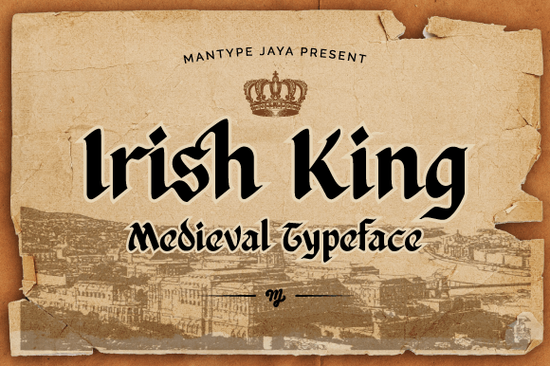
If you’ve been searching for a font that feels like it stepped out of an ancient manuscript but still works beautifully on modern projects, you might want to take a closer look at Irish King Font. It’s a blackletter display typeface with a Celtic twist the kind of design that adds instant character to logos, invitations, book covers, or even merch for print-on-demand shops. The letterforms are rooted in classic medieval script, but they’re clean enough to read and flexible enough to use across digital and physical formats.
What makes this font different from other blackletter styles?
Most blackletter fonts lean heavily into Germanic or Gothic roots think old newspapers or heavy metal album covers. Irish King, however, weaves in subtle Celtic influences. You’ll notice softer curves, ornamental terminals, and a rhythm that feels more lyrical than rigid. It’s not just about looking old; it’s about evoking a specific mood mystical, noble, maybe even a little enchanted.
Who is this font actually good for?
- Small business owners If your brand leans into heritage, storytelling, or artisanal craftsmanship (think breweries, bookshops, or handmade goods), this font can reinforce that vibe without feeling forced.
- Crafters and DIYers Use it on wood signs, vinyl decals, or embroidery patterns. The bold strokes hold up well when scaled or printed on textured surfaces.
- Print-on-demand sellers Pair it with minimalist layouts or nature-inspired graphics for mugs, posters, or apparel that stand out in crowded marketplaces.
- Designers and hobbyists Even if you’re just playing around, the stylistic alternates give you room to experiment. Try mixing uppercase and lowercase for contrast, or layering it over parchment-style backgrounds.
What should I avoid when using this font?
Blackletter fonts like this one have strong personalities which means they don’t always play nice with everything. Here’s what to watch out for:
- Don’t use it for body text. It’s meant to be seen, not read in long paragraphs. Stick to titles, headers, or short phrases.
- Avoid clashing themes. This isn’t the font for tech startups or yoga studios. Save it for projects that match its medieval or mythical tone.
- Pair it thoughtfully. Combine it with simple sans-serifs or serif fonts that won’t compete visually. A clean font like Lora or Montserrat balances its complexity nicely.
Where can I see examples or get inspired?
Check out how others are using it in the blackletter fonts collection you’ll find mockups for packaging, social media banners, and even tattoo designs. Seeing real-world applications can spark ideas you wouldn’t think of on your own.
You might also explore historical manuscripts or Celtic knotwork for styling cues. Sometimes, stepping away from the screen and looking at old books or museum exhibits helps you imagine new ways to apply the font creatively.
Fonts like Irish King remind us that typography isn’t just about communication it’s about atmosphere. When used with intention, it doesn’t just say something… it makes you feel something. Whether you’re crafting a label for homemade mead or designing a fantasy novel cover, this font gives you a shortcut to that rich, storied aesthetic without needing a history degree to pull it off.